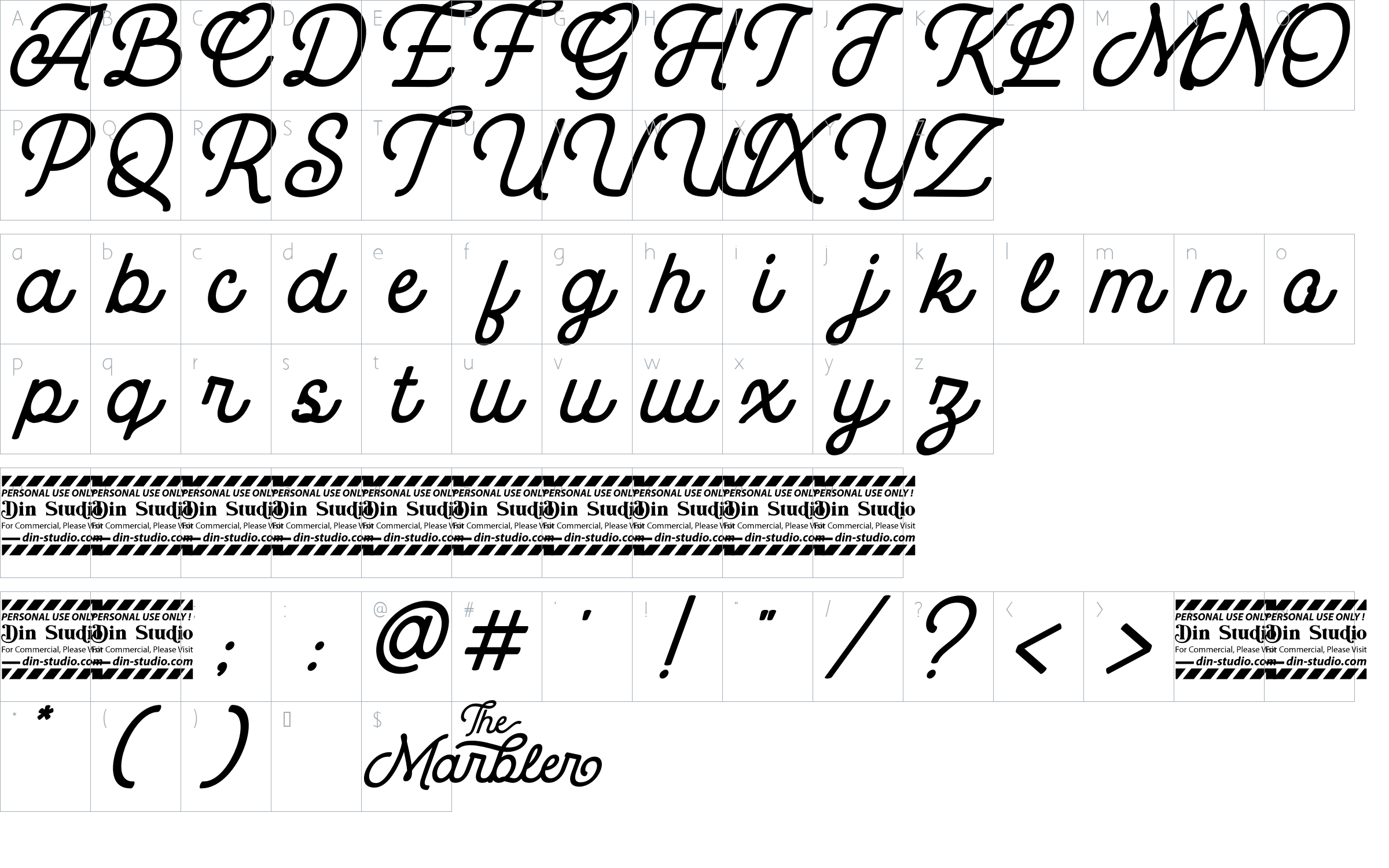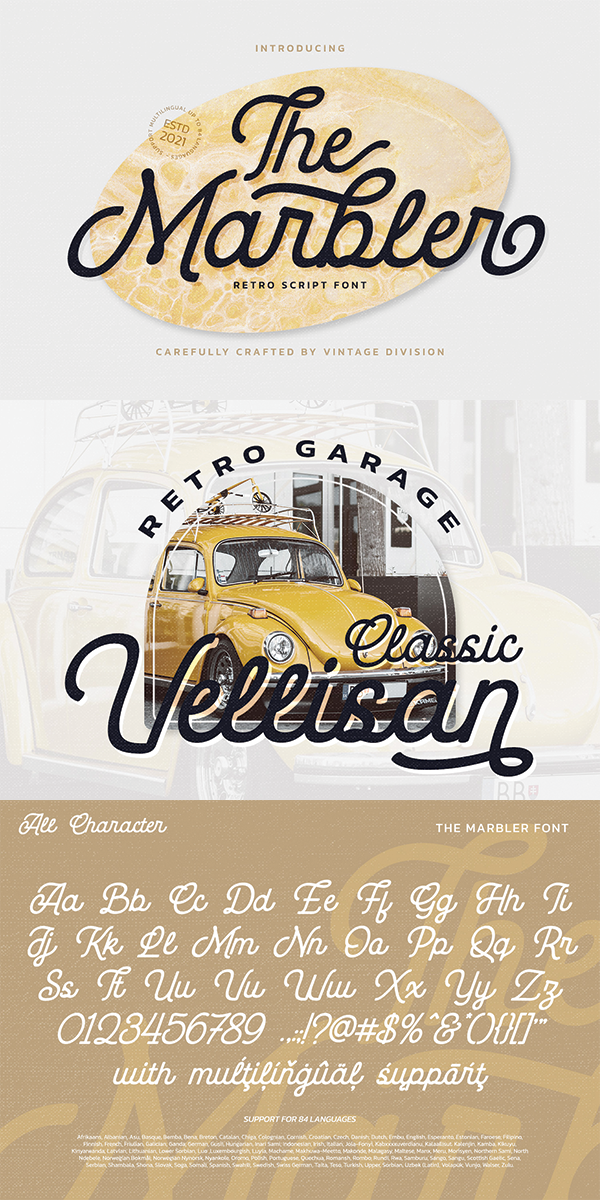
The Marbler Font
About The Marbler
The Marbler-A Handwritten Font
The Marbler is a handwritten font with retro look. Inspired from 1960s style. Every stroke and curve was created to entice happiness and elegance. The best choice to ensure a great font match for your designs and projects! Well suited to titles, poster designs, branding, quotes, and logos.
Our font always includes Multilingual Options to make your branding globally acceptable.